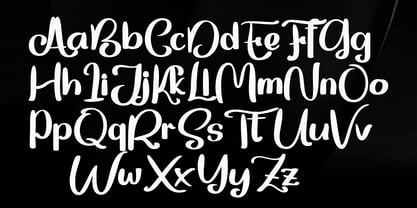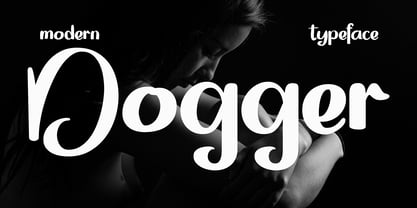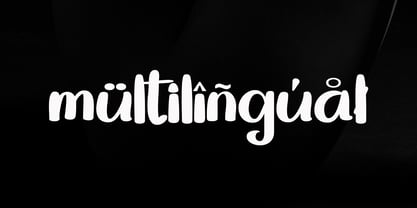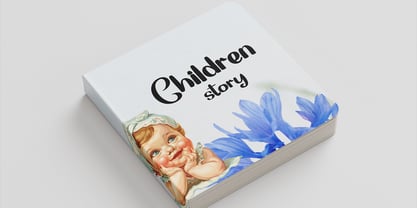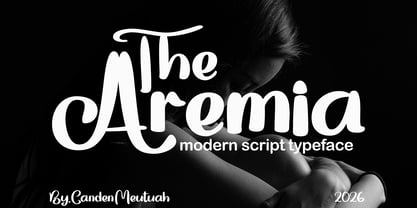
The Aremia
by Canden Meutuah
The The Aremia Font Family was designed by Canden Meutuah and published by Canden Meutuah. The Aremia contains 1 styles. More about this family
The Aremia is an elegant and refined handwritten typeface, ideal for a wide range of design applications. Whether you're creating logos and branding, social media posts, advertisements, business cards, or wedding invitations, this font adds a touch of extraordinary beauty to your projects. Its versatility makes it perfect for posters, logo designs, editorial titles, album covers, fashion branding, and display titles, ensuring your work stands out with a unique and captivating flair. With various weights and OpenType features, Aremia enhances your creative expression and elevates your designs.